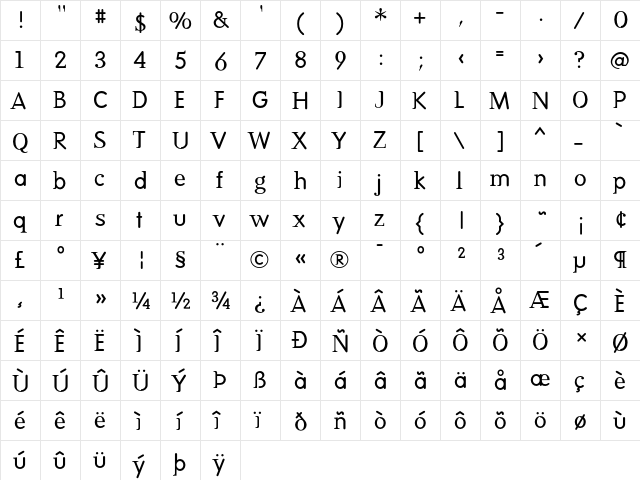
DeadHistory Roman
Design Context for DeadHistory Typeface
DeadHistory takes a measured approach to typography — its balanced proportions and neutral character make it a reliable workhorse for both digital and print work.
Pro Tip: Pair DeadHistory with a font of contrasting weight or personality to build a more expressive typographic hierarchy.